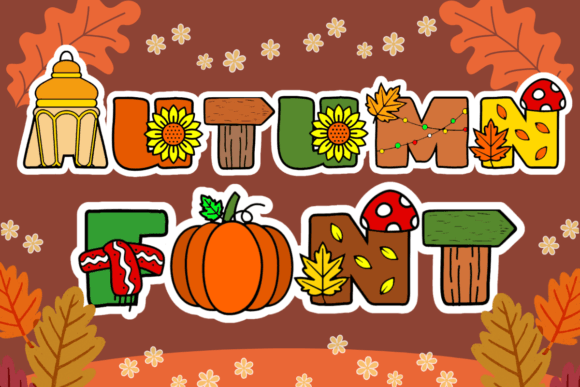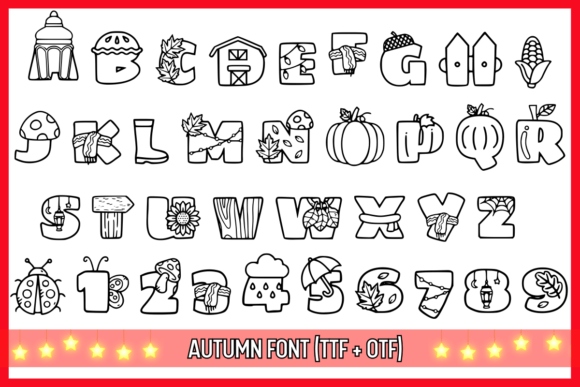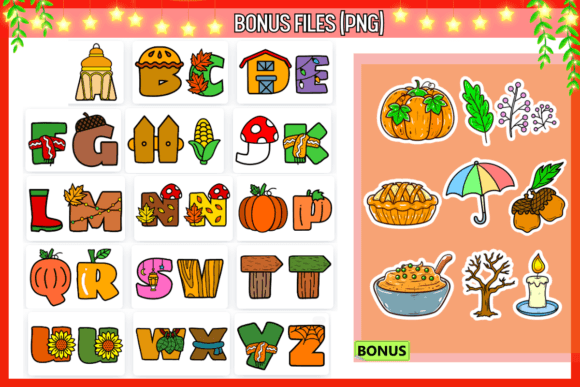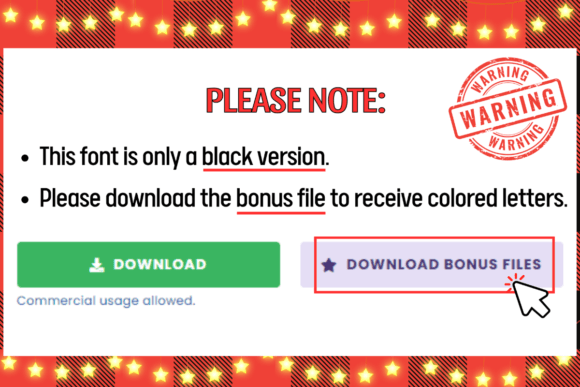
Autumn Font
Autumn is a fun and festive decorative font where each letter is adorned with elements of the fall season. Picture letters dressed in cozy scarves, surrounded by falling leaves, pumpkins, and acorns. This font brings the warmth and beauty of autumn into every word.